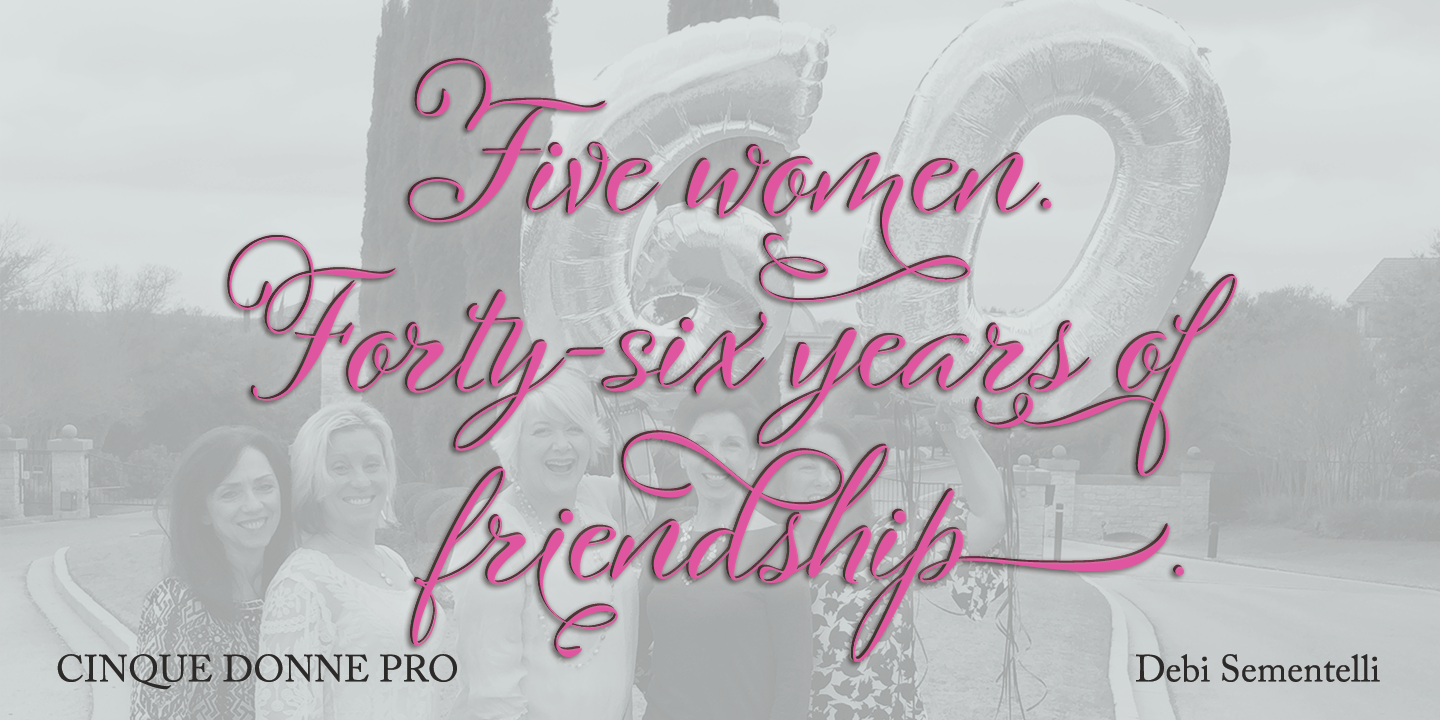
Cinque Donne Font is perfect for Italian fashion house branding, sophisticated women's boutique communications, luxury European spa resort signage, elegant feminine lifestyle magazine layouts, artisanal Italian jewelry marketing, refined women's empowerment organization materials, exclusive ladies' club promotions, and graceful Italian cultural event campaigns. This sophisticated typeface excels in applications where Italian elegance, feminine sophistication, and European luxury are essential for connecting with audiences who appreciate the timeless beauty of Italian style and the refined grace of sophisticated feminine design.
What makes Cinque Donne Font so exciting is its exquisite embodiment of Italian feminine elegance and sophisticated European style that perfectly captures the essence of five distinct feminine personalities unified in harmonious design excellence and the celebrated tradition of Italian fashion mastery. The font features graceful, flowing letterforms with Italian characteristics that evoke handwritten notes from Tuscan villas and elegant European correspondence. Its sophisticated character conveys refinement, femininity, and Italian heritage - essential qualities for brands serving luxury women's markets, European fashion industries, and audiences who appreciate Italian craftsmanship, feminine elegance, and the sophisticated beauty of European design traditions and Italian cultural refinement.
The Cinque Donne Font family includes multiple elegant weights and Italian-inspired variations that enhance its feminine appeal. Some versions feature delicate flourishes and graceful curves that reflect Italian artistic traditions and feminine calligraphy, while others provide streamlined variants that maintain the font's sophisticated character with enhanced readability for professional luxury applications and commercial Italian brand communications.
Whether you're creating branding for Italian luxury companies, designing materials for feminine lifestyle services, or developing marketing campaigns for European elegance experiences, Cinque Donne Font Free Download provides the Italian sophistication your project requires. The font's feminine character makes it particularly effective for brands targeting sophisticated women who appreciate Italian style, European luxury, and the timeless elegance of feminine design and Italian cultural heritage.
Embrace Italian elegance with Cinque Donne Font and grace your brand communications with typography that celebrates the sophisticated beauty of Italian feminine style and European refinement.